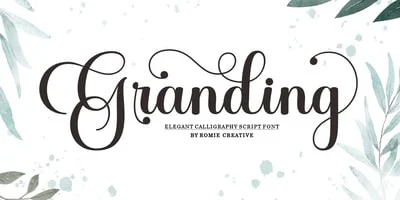
Granding Script
Granding Script Font
Granding Script Font is perfect for luxury brand identity, high-end wedding invitations, prestigious award ceremonies, elegant signature logos, sophisticated restaurant branding, premium product packaging, exclusive membership materials, refined calligraphy workshops, and magnificent social media content. This majestic typeface brings grand elegance and distinguished sophistication to both digital and print design applications.
Granding Script Font is exciting because it embodies the magnificent grandeur and timeless distinction of classical formal script writing, making it an exceptional choice for designers who want to convey prestige and magnificence with authentic grand appeal. Its flowing letterforms and distinguished character provide the perfect combination of grand sophistication and functional elegance, ensuring your projects communicate magnificence, prestige, and grand excellence that resonates with audiences seeking genuine luxury experiences and distinguished quality.
The Granding Script Font family includes grand weight variations and prestigious elements, featuring regular and bold weights with complementary elegant styles, distinguished ligatures, and magnificent decorative flourishes. Each style maintains consistent grand aesthetics while offering flexibility for different luxury applications, allowing designers to create majestic visual systems that reflect prestigious values and grand sophistication.
Whether you're designing for luxury brands, prestigious organizations, or distinguished projects, Granding Script Font delivers authentic grand appeal and prestigious sophistication that connects with audiences seeking genuine magnificence and luxury experiences. This premium typeface offers designers the grand elegance and distinguished charm needed to create designs that communicate luxury excellence, prestigious quality, and magnificent beauty effectively. The font's majestic character makes it perfect for luxury branding, prestigious campaigns, and grand applications where authentic luxury credibility is essential. Download Granding Script Font today and magnify your creative projects with genuine grand sophistication and distinguished typography excellence that defines luxury design standards.